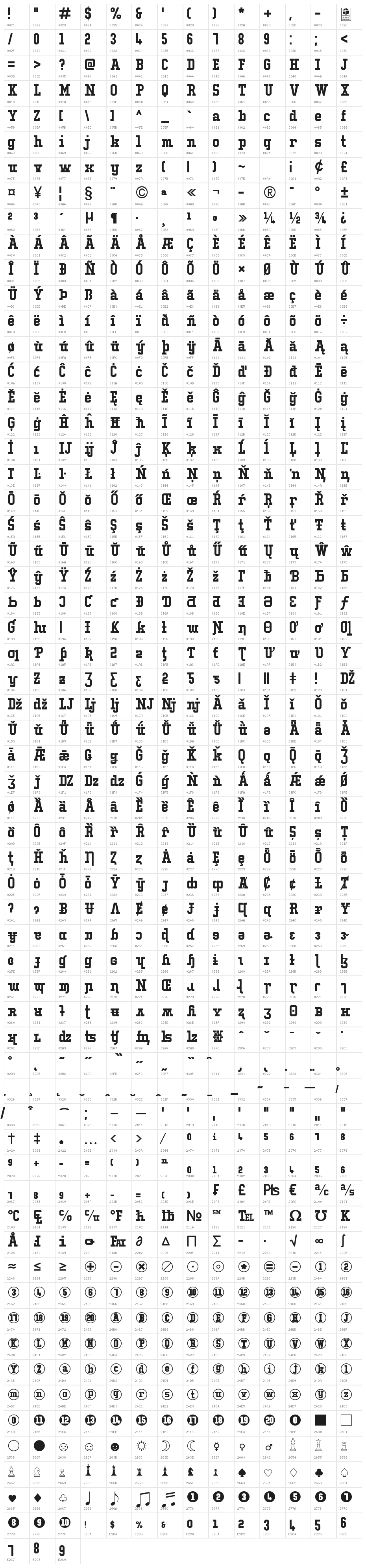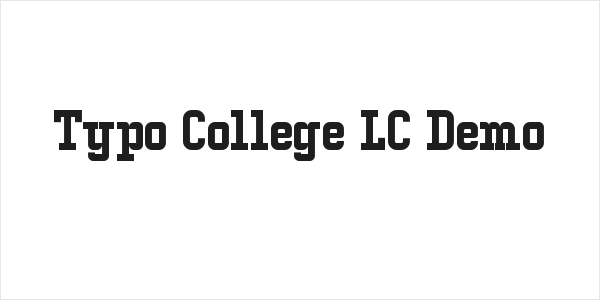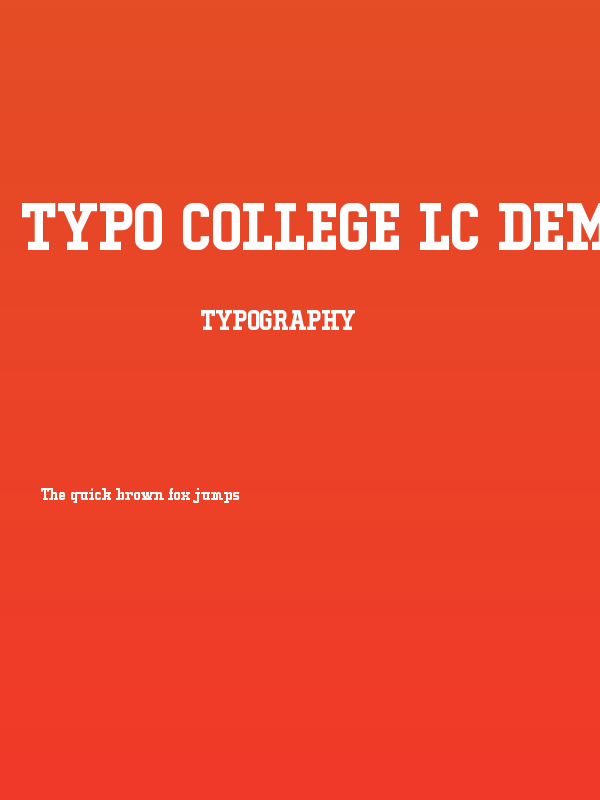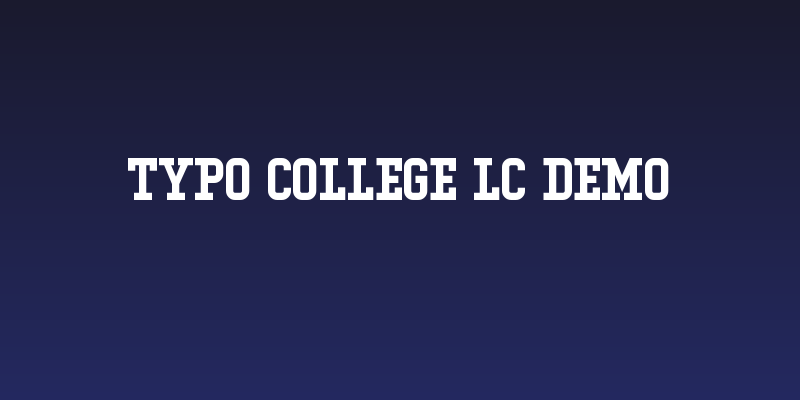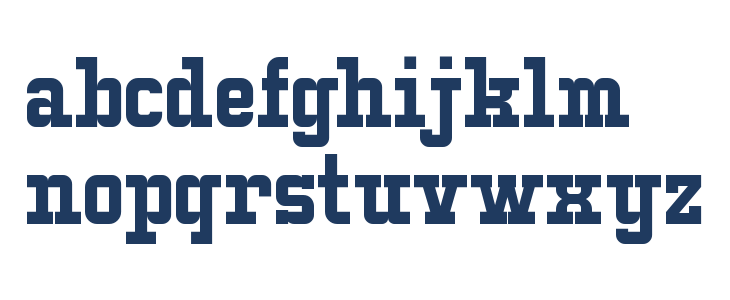
Typo College LC Demo Font
Typo College LC Demo Description
This font features a bold, collegiate style with strong, block-like characters that convey a sense of strength and tradition. The uppercase letters are particularly striking, with a uniform height and width that create a cohesive look. The lowercase letters maintain the boldness of the uppercase, with slightly rounded edges that add a touch of softness to the overall design. Numbers and special characters are consistent with the font's bold and structured aesthetic, making it versatile for various uses. The font's design is reminiscent of classic athletic and university lettering, ideal for projects that require a sense of authority and nostalgia.
| Proposed Projects | Ideal for sports team branding, university merchandise, posters, and retro-themed designs. |